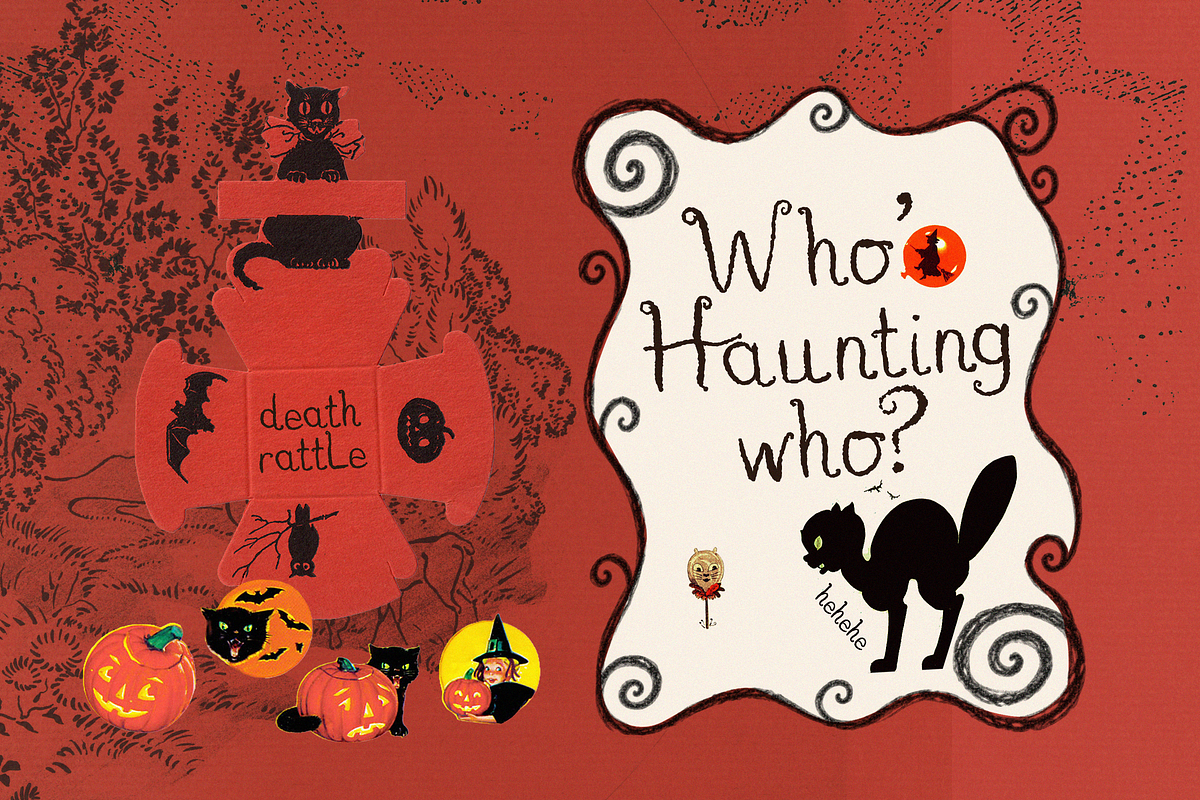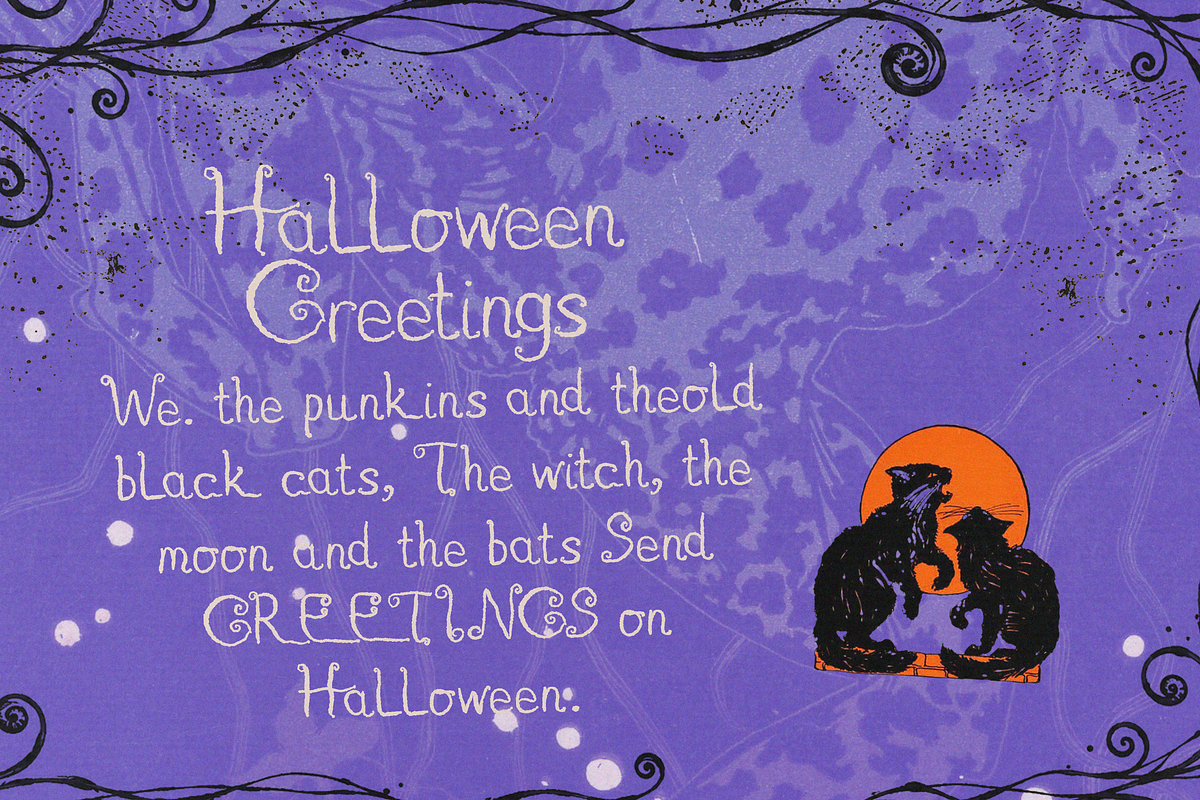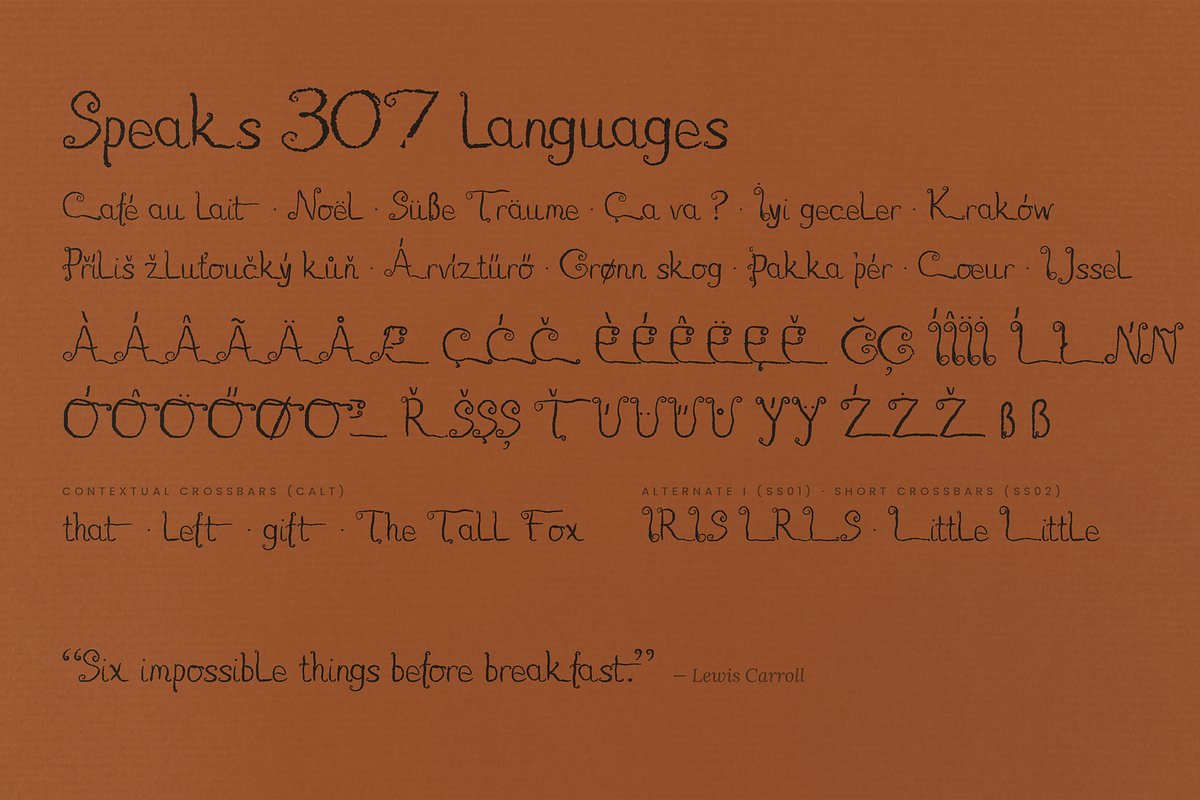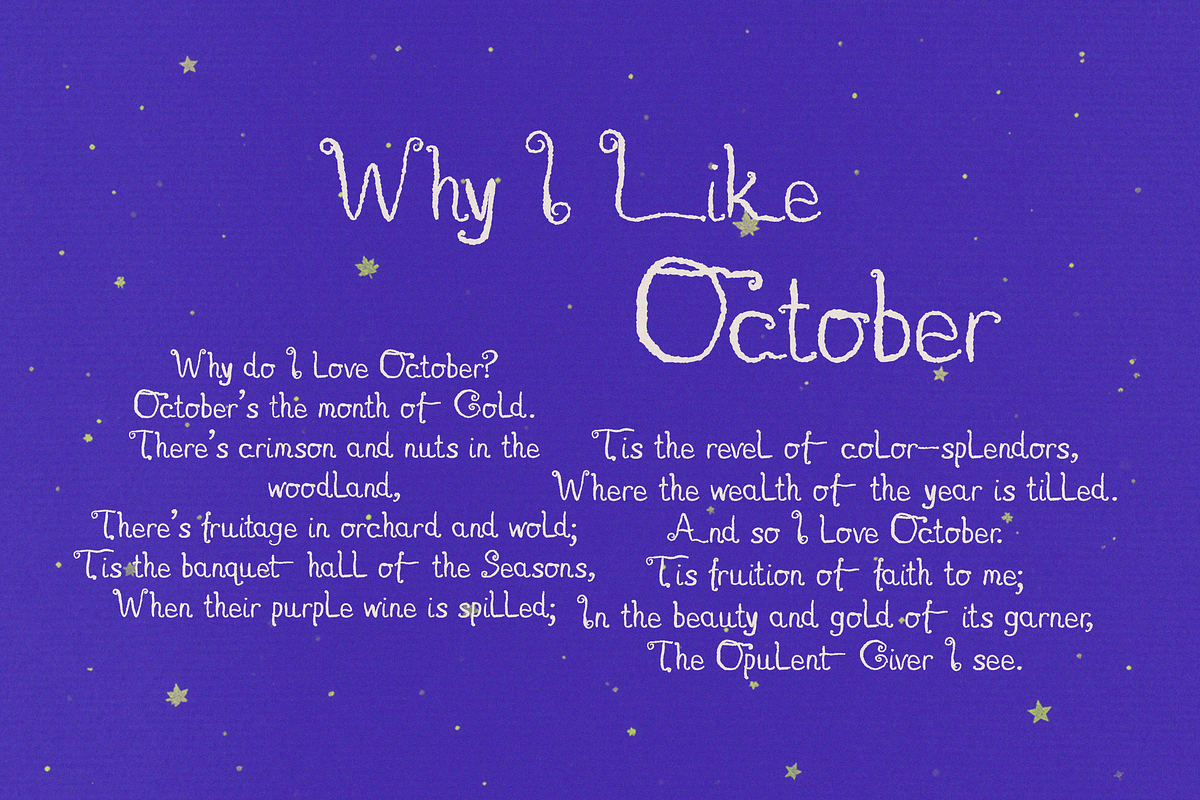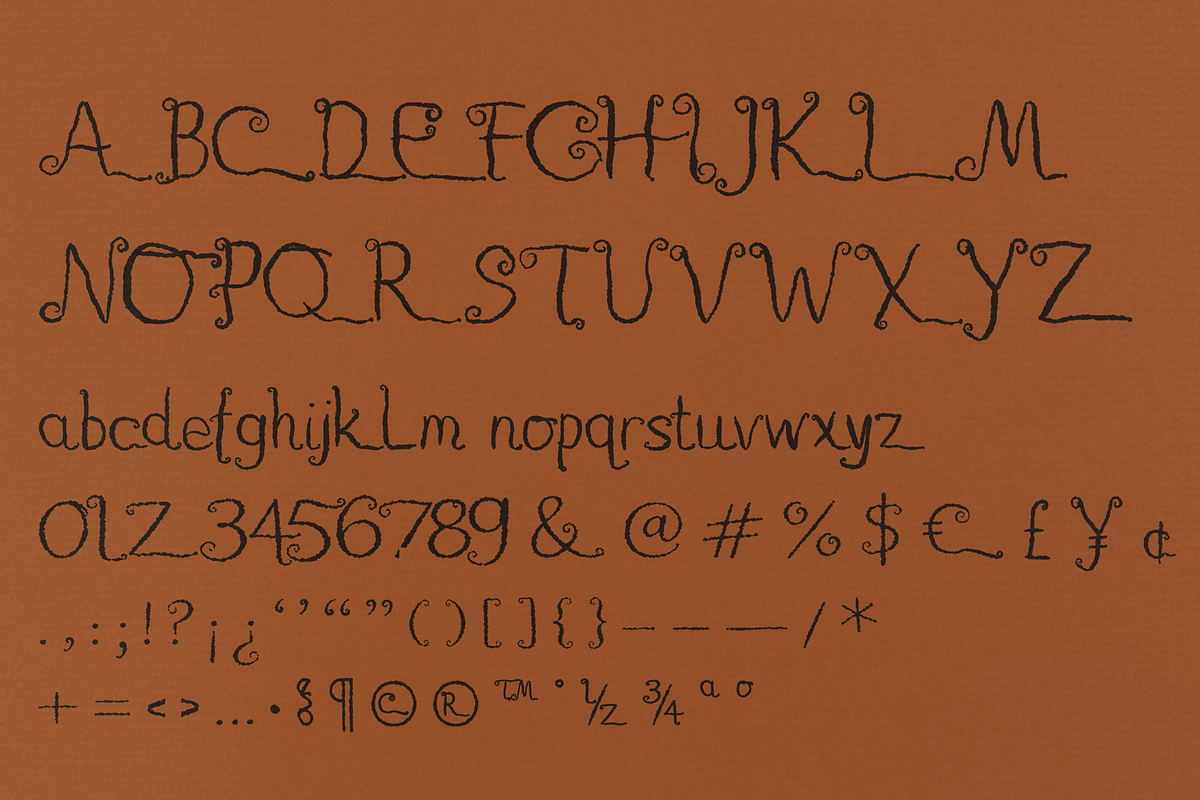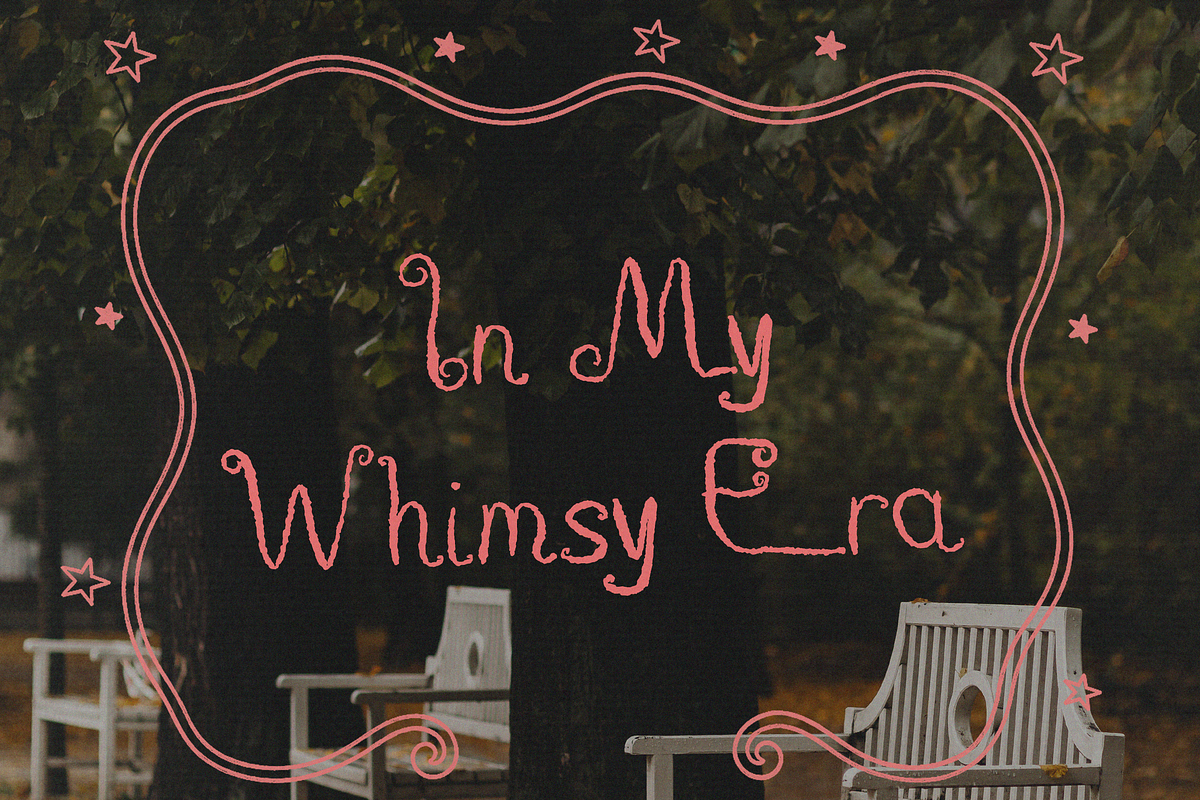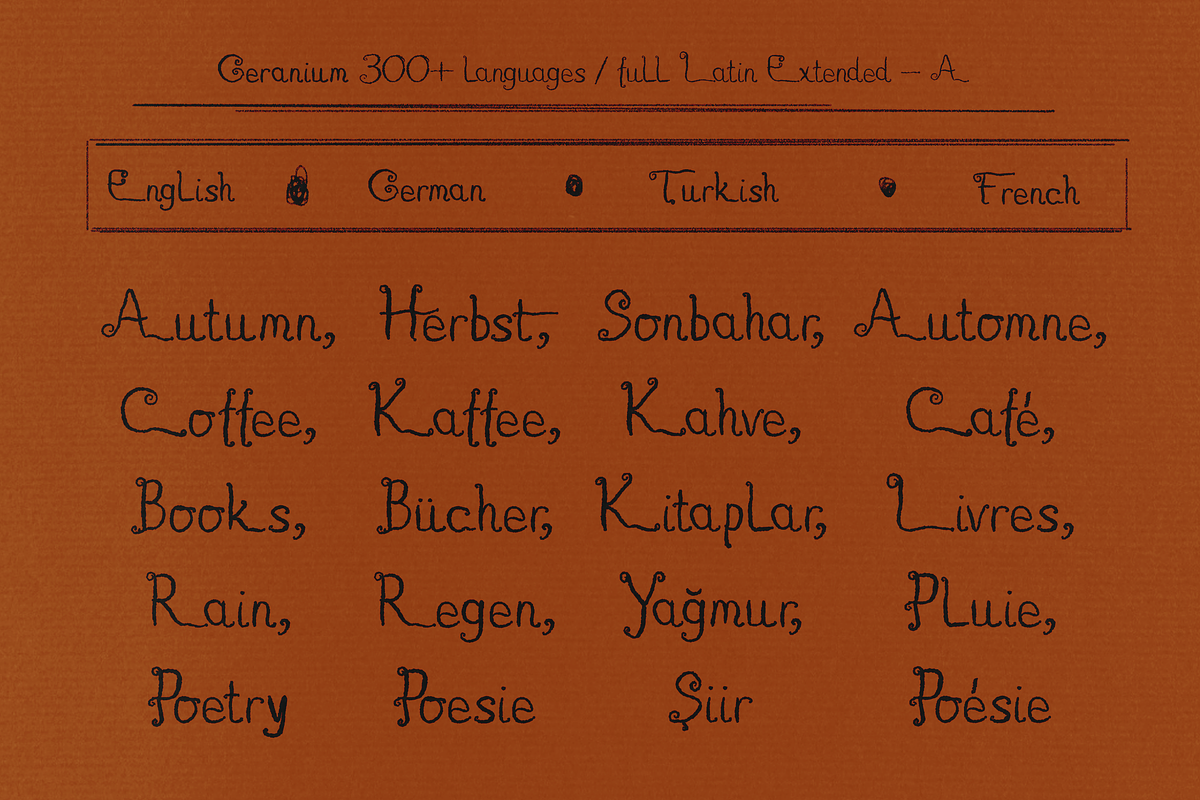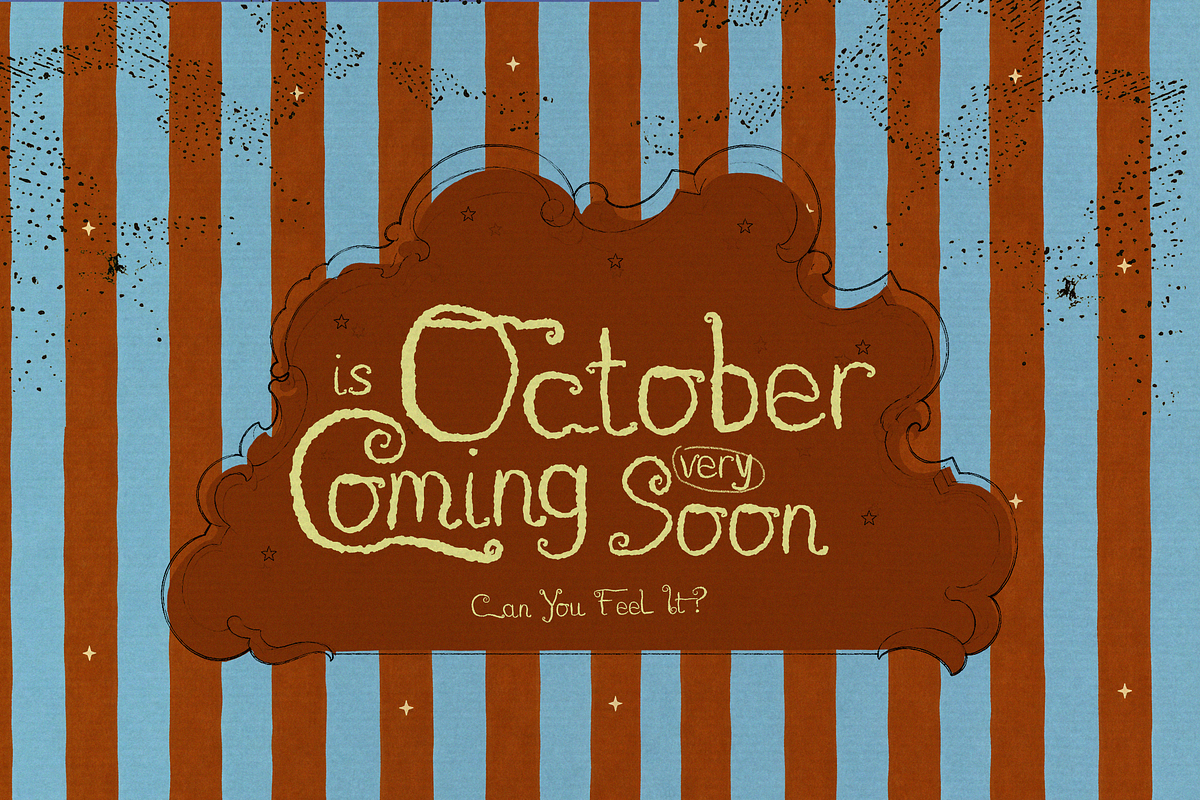
Geranium - Whimsical Hand‑Drawn Font
Geranium is a textured, hand‑drawn display font with curly terminals, wobbly ink edges and little flourishes on the crossbars like lettering from a storybook margin. Every letter was drawn by hand, then traced to keep the rough, worn‑ink texture; nothing is smoothed or "cleaned up".
It's made for whimsy: fairy‑tale invitations, children's books, Halloween and Christmas cards, tea‑party menus, nursery prints, candle and jam labels, planner stickers, cottagecore and witchy branding, quote prints and Pinterest graphics.
What makes it special
Capitals with sweeping baseline swashes big, decorative, made for headlines
Smaller, friendly lowercase that sits neatly under the capitals
Contextual alternates: t and f keep their long flourish at the end of a word and switch to a tidy short crossbar inside words (automatic in any OpenType‑aware app; turn calt off for all‑flourish, or use Stylistic Set 2 for all‑short)
Stylistic Set 1: capital I with a foot, as originally drawn
Professionally spaced and kerned (17 000+ kerning pairs) — and safe without kerning in cutting/crafting apps
Real accents, not stacked hacks: mark positioning for all accented letters, combining accents supported
Character set 385 glyphs · A–Z, a–z, figures, full punctuation & symbols (& @ # % € £ ¥ ¢ © ® ™ § ¶ …), typographic quotes and dashes, fractions ¼ ½ ¾, ordinals, Æ Œ Ø ß ẞ Þ Ð Ł Đ Ħ Ŧ Ŋ and more. Complete Latin‑1 and Latin Extended‑A, Turkish İ ı Ğ Ş, Romanian Ș Ț, Polish, Czech, Hungarian, Nordic, Baltic — 307 languages (verified with Hyperglot).